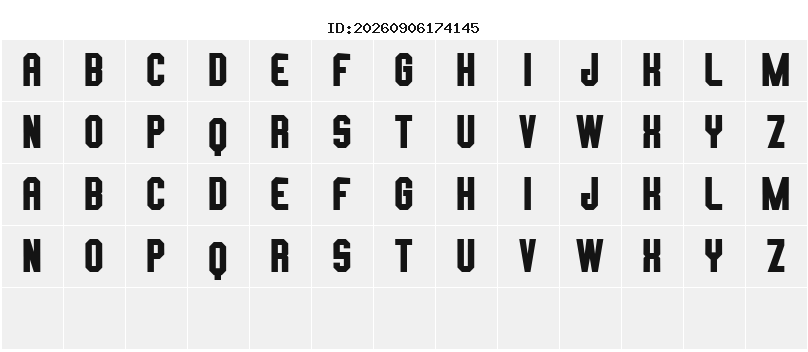
TOP GUN Preview
• Font Name: TOP GUN
• Full Font Name: TOP GUN
• Designer: P.A.Vannucci
About TOP GUN.ttf
TOP GUN.ttf is a modern, elegant sans-serif font designed for ultimate readability and visual harmony. Perfect for branding, headlines, web design, and print materials.